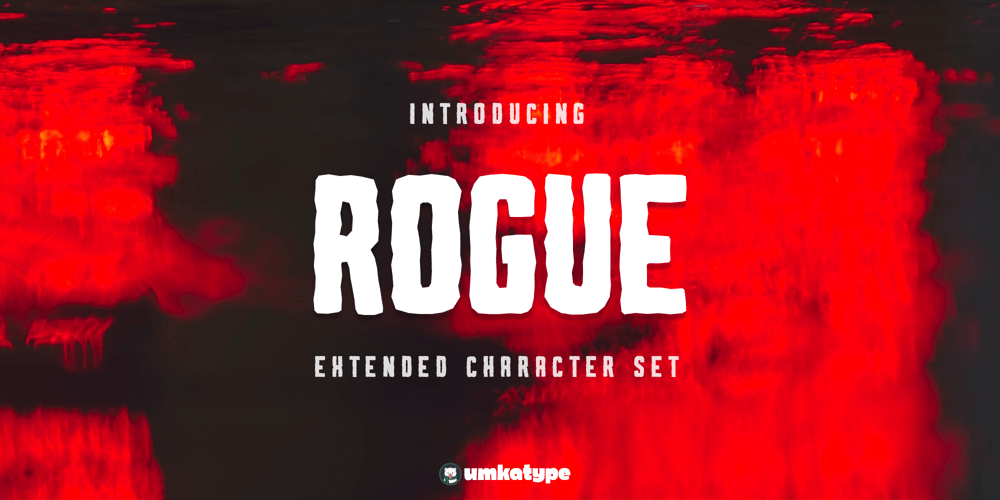
Rogue
Rogue font
Rogue Font Family was designed by Alper Çakıcı and published by Umka Type. Rogue contains 1 styles and family package options. Rogue – A Display Font : Rogue is a carefully crafted display font. It has Extended Latin and Cyrillic characters. It created for poster, web, brand and social media designs.